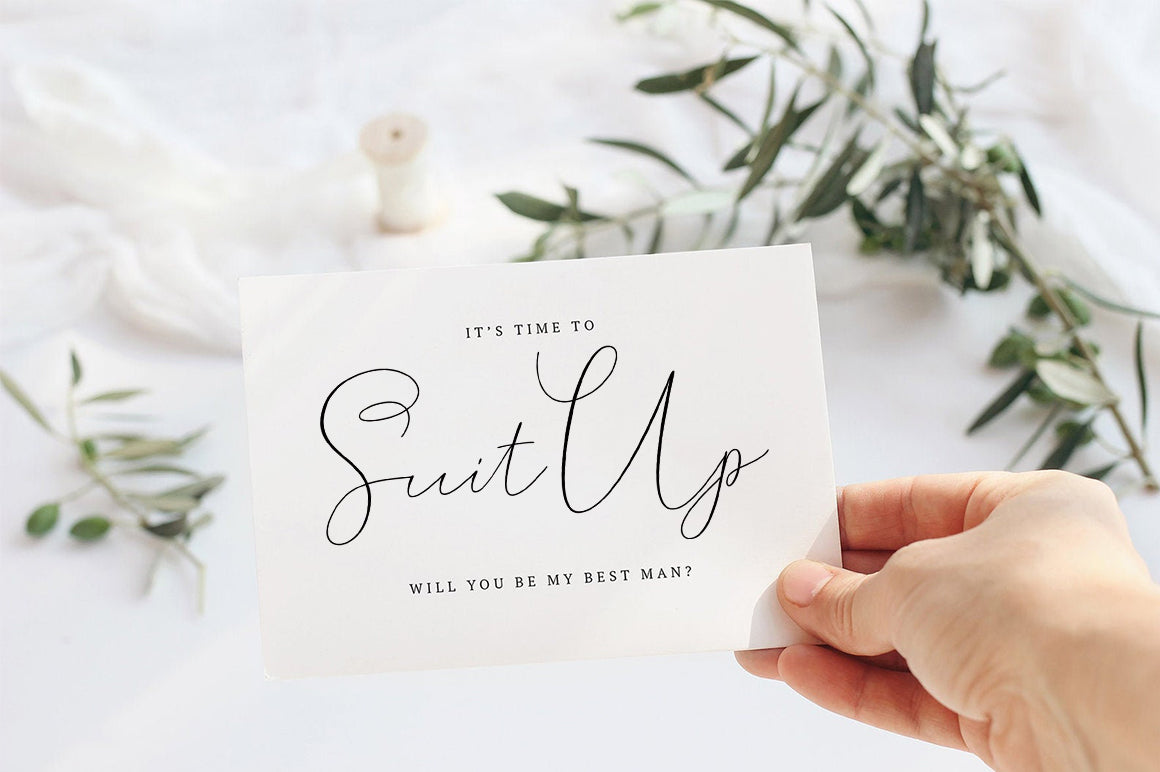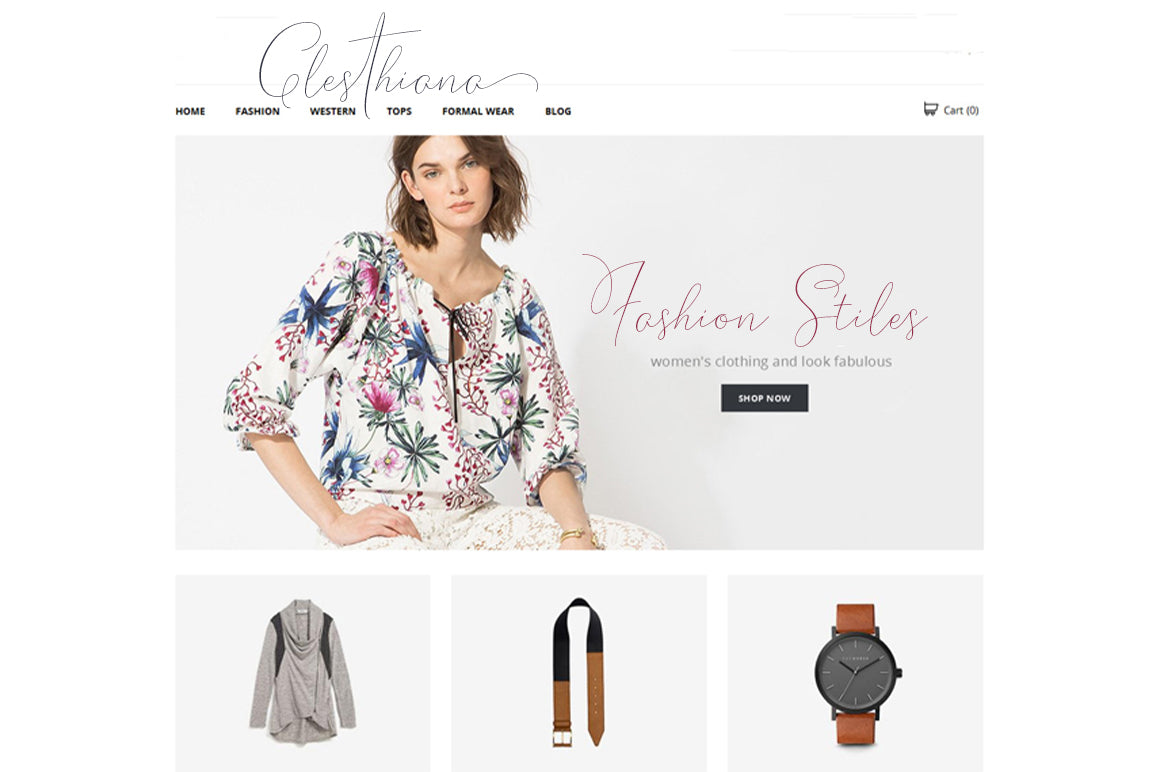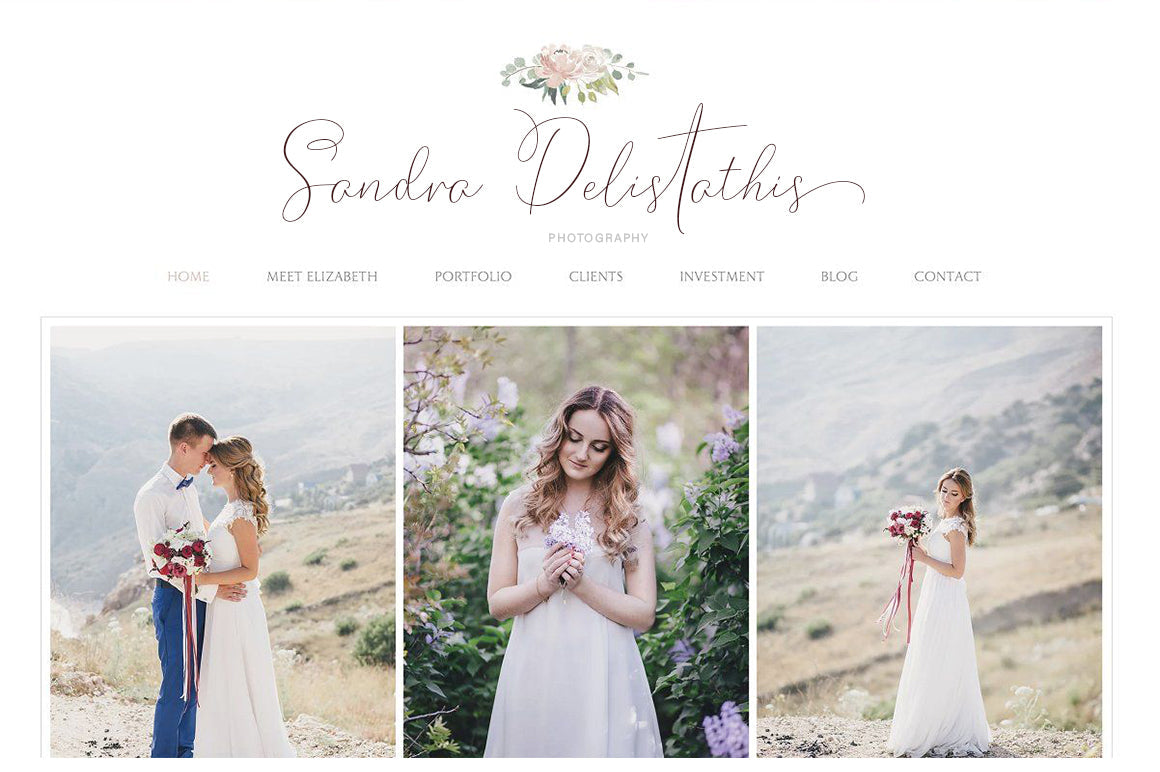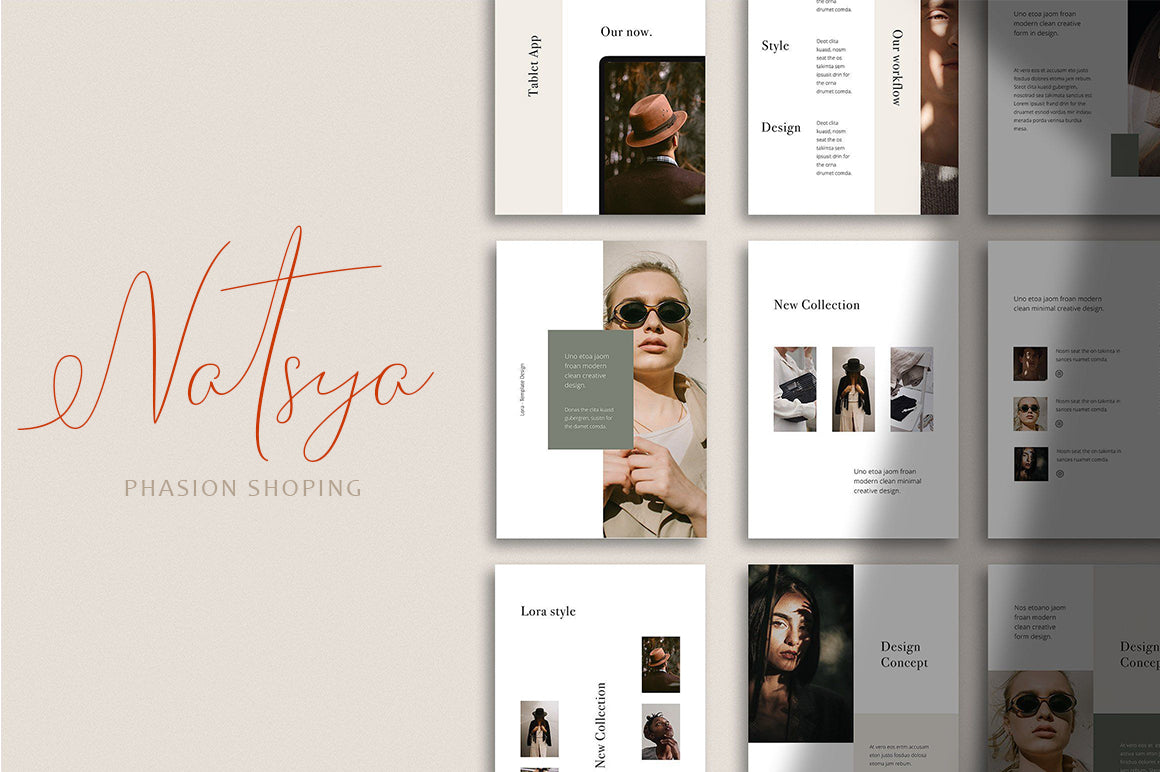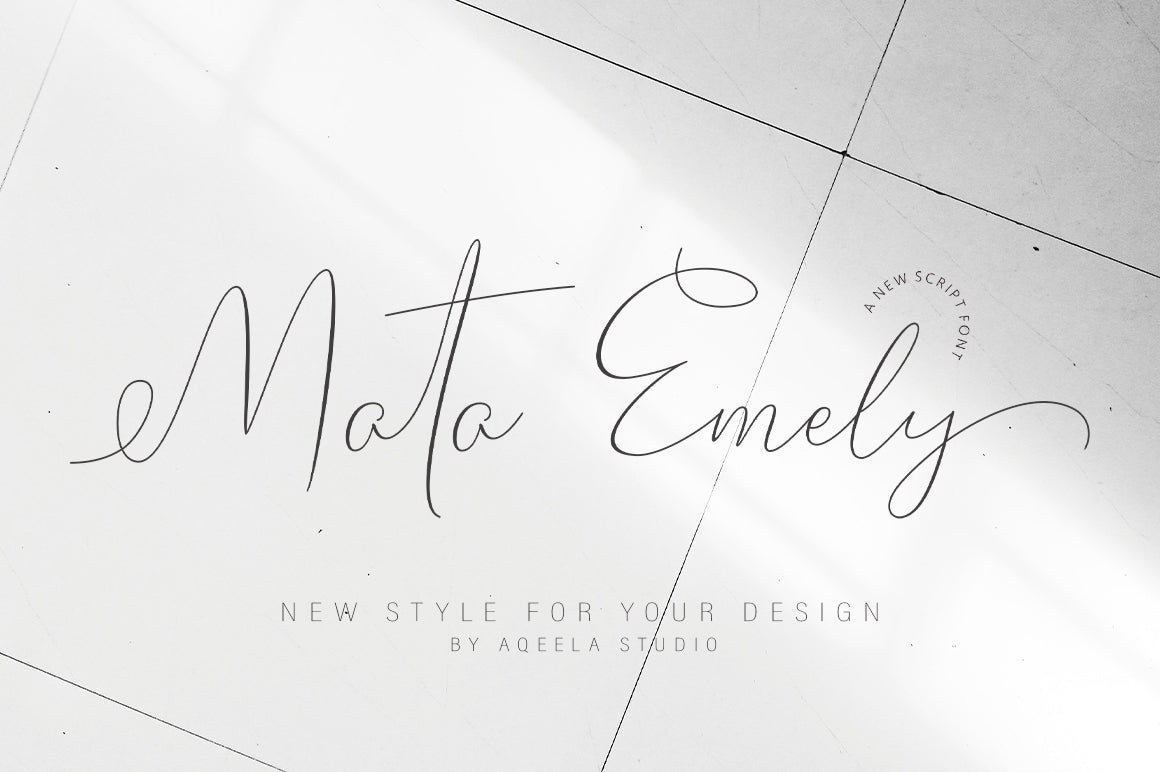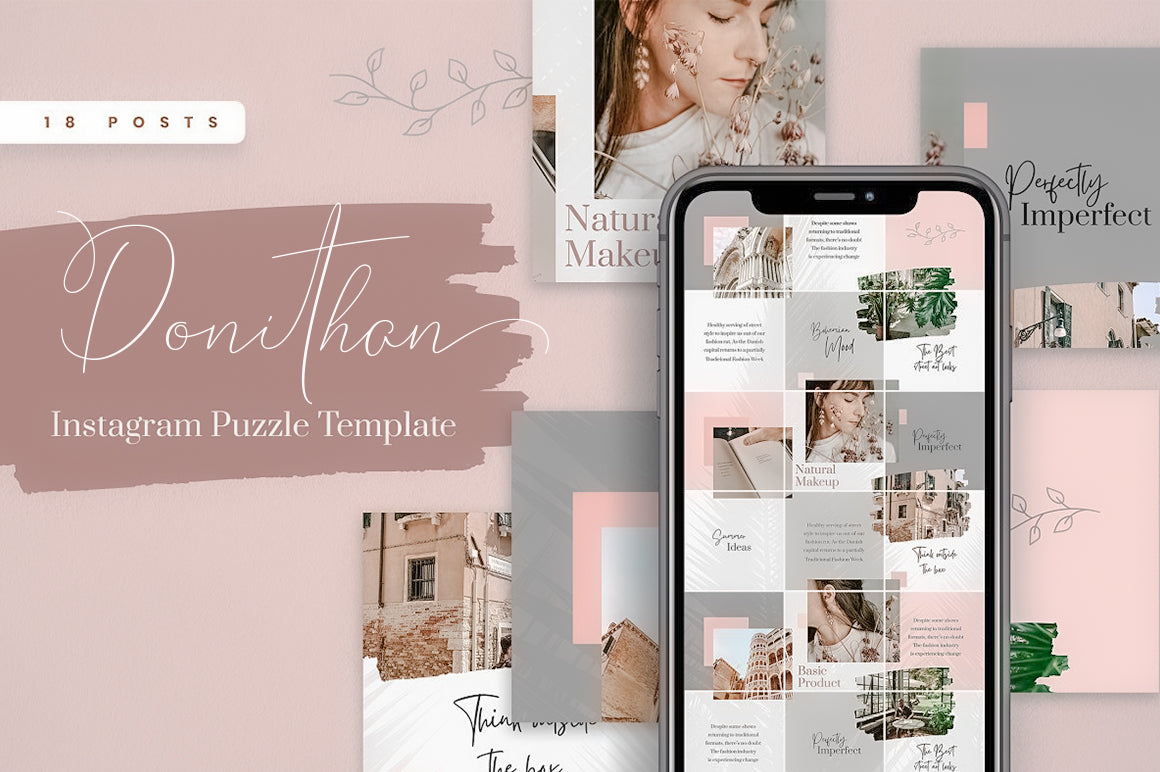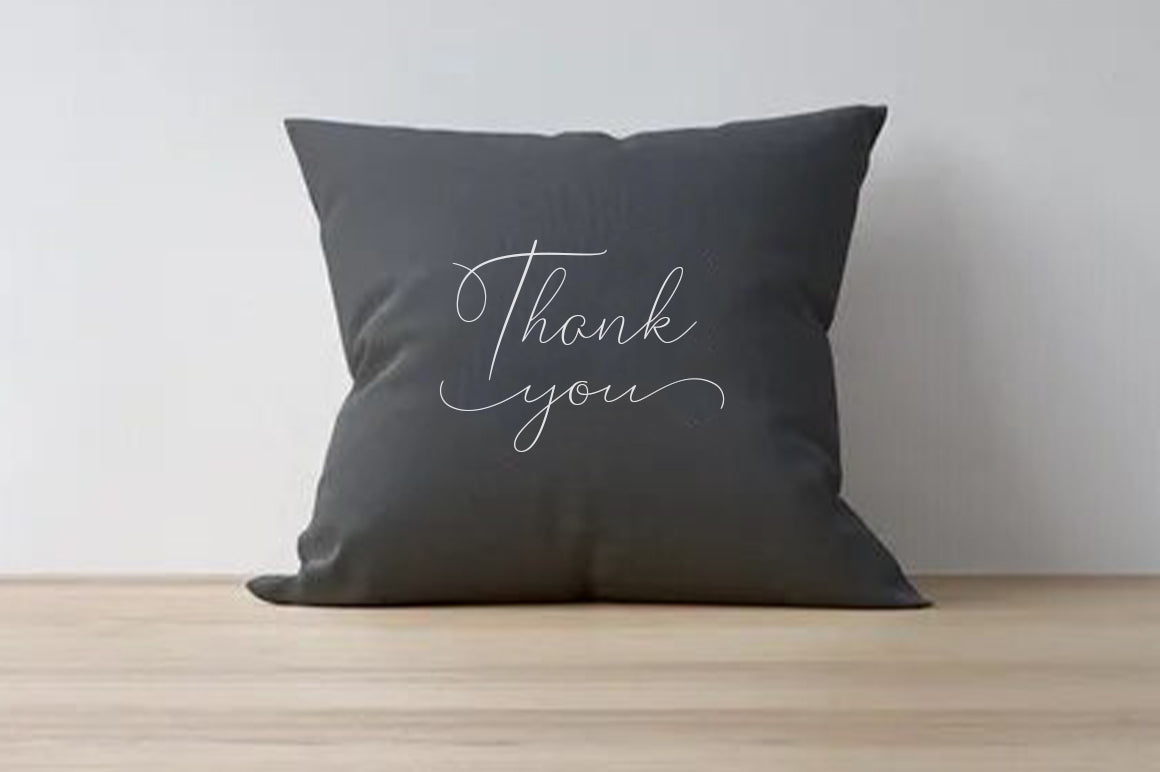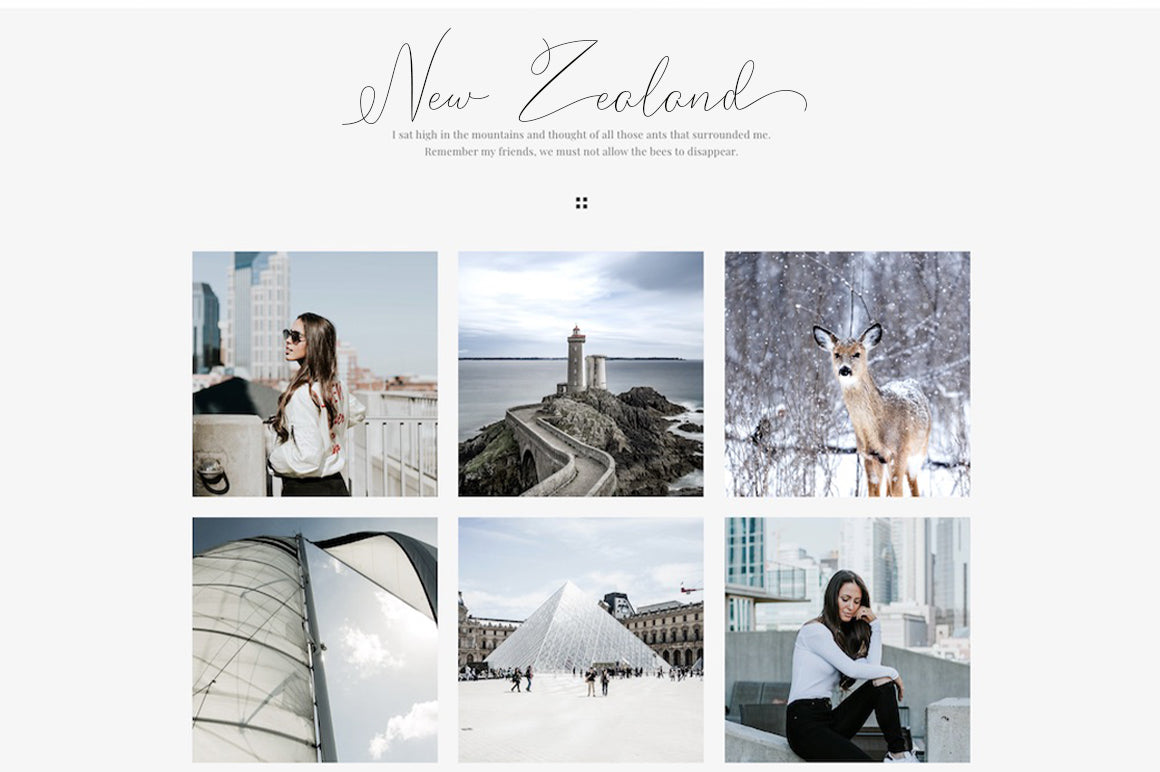
Mata Emely
About Mata Emely
Mata Emely is a thin and elegant handwritten font. Fall in love with its incredibly versatile style and use it to create gorgeous wedding invitations, beautiful stationary art, eye-catching social media posts and more! This font is PUA encoded which means you can access all the glyphs and sweeps easily!